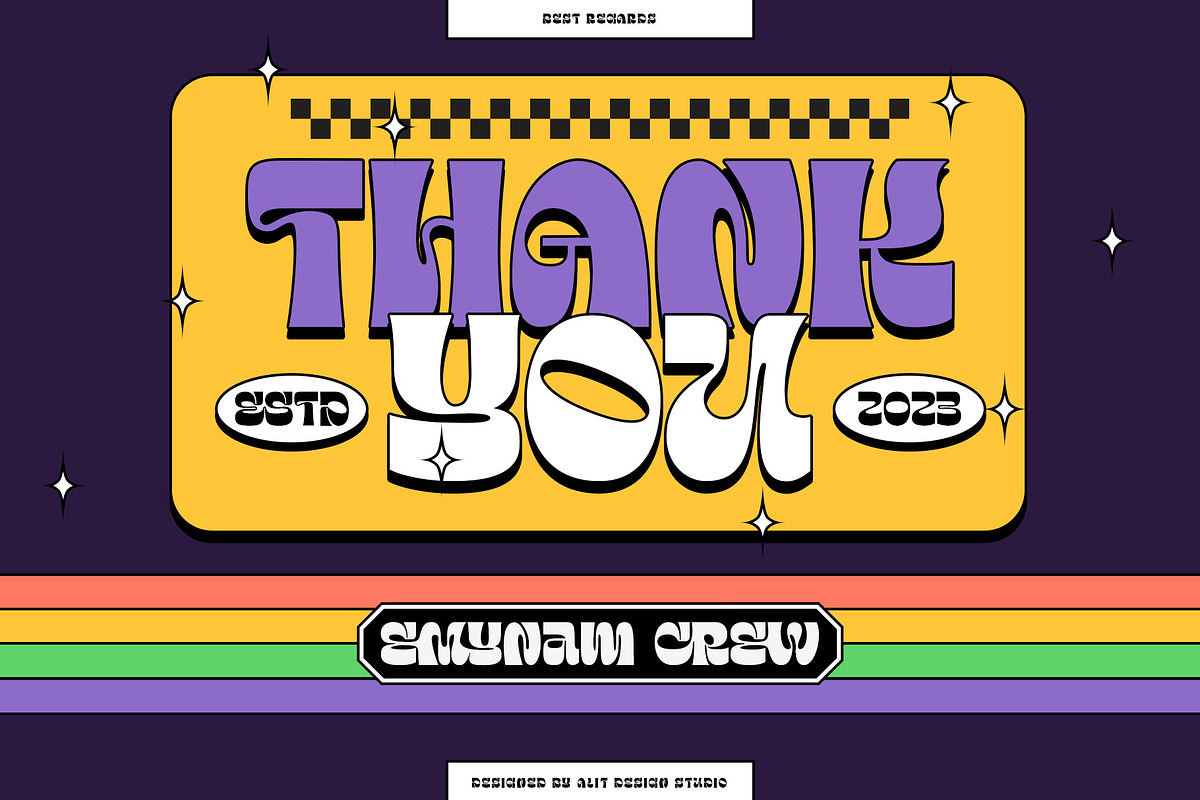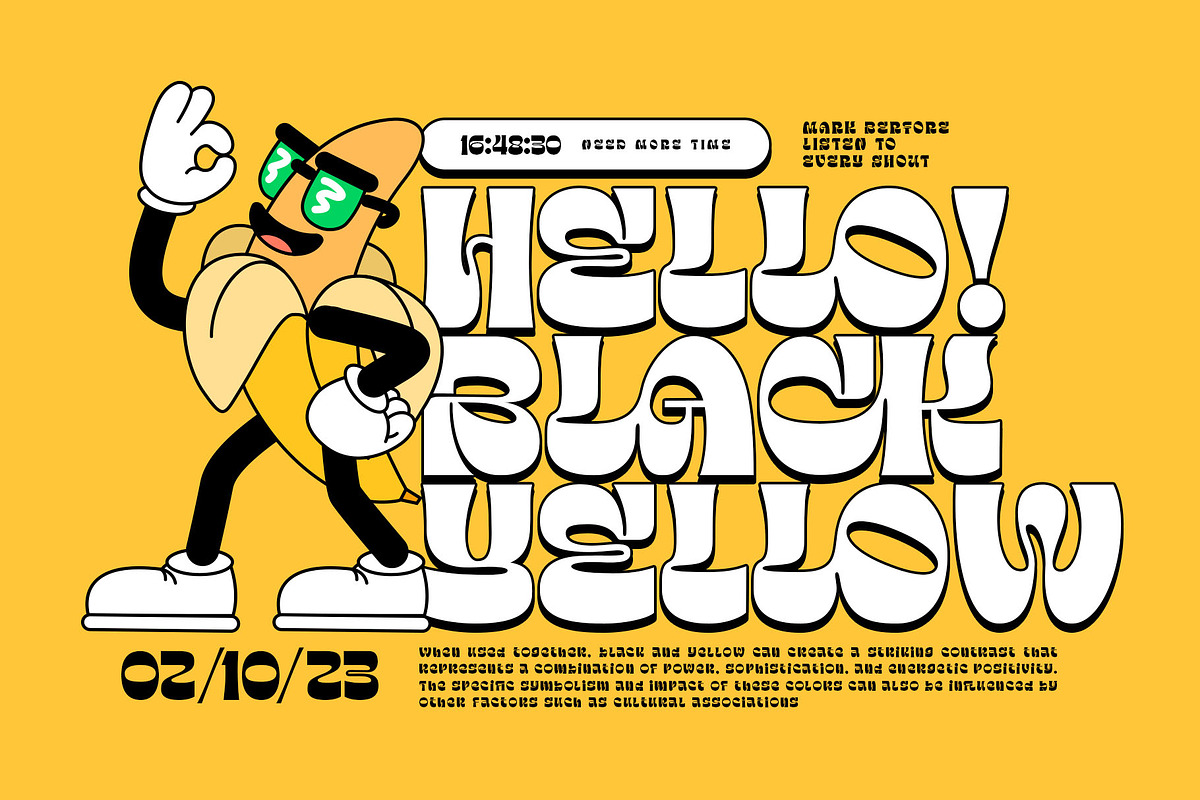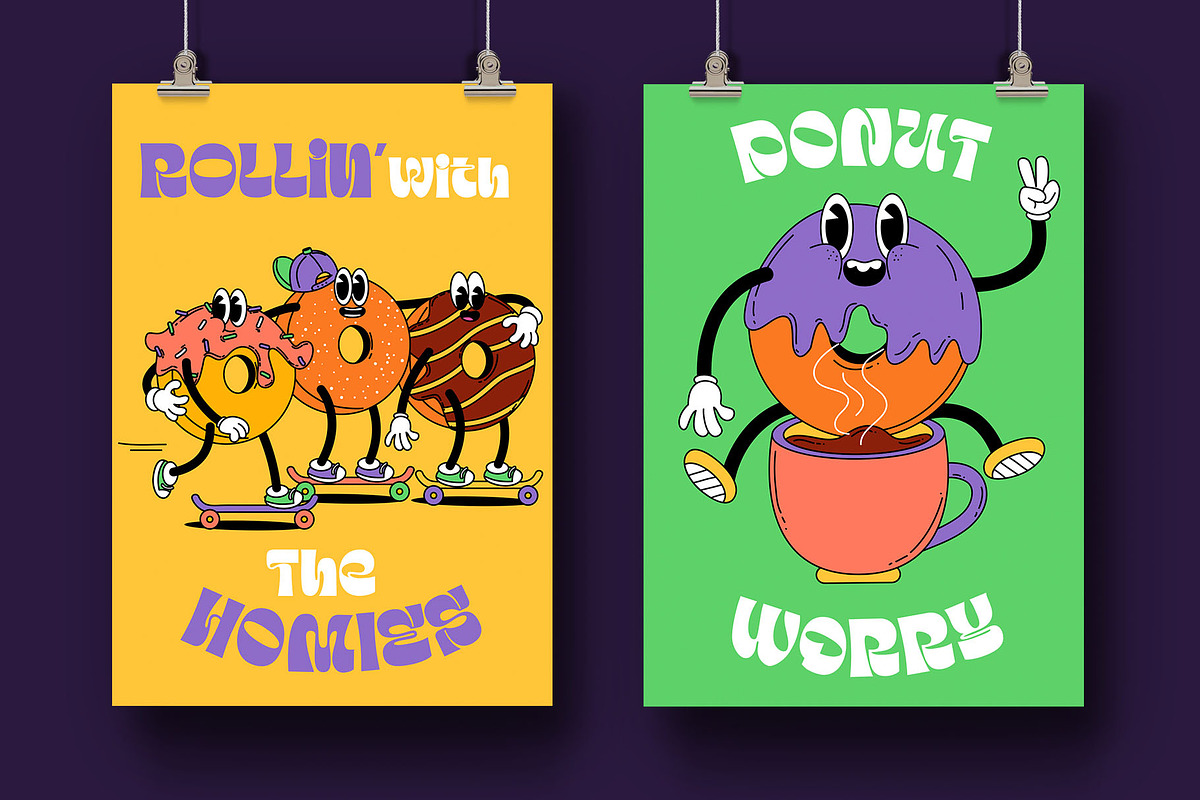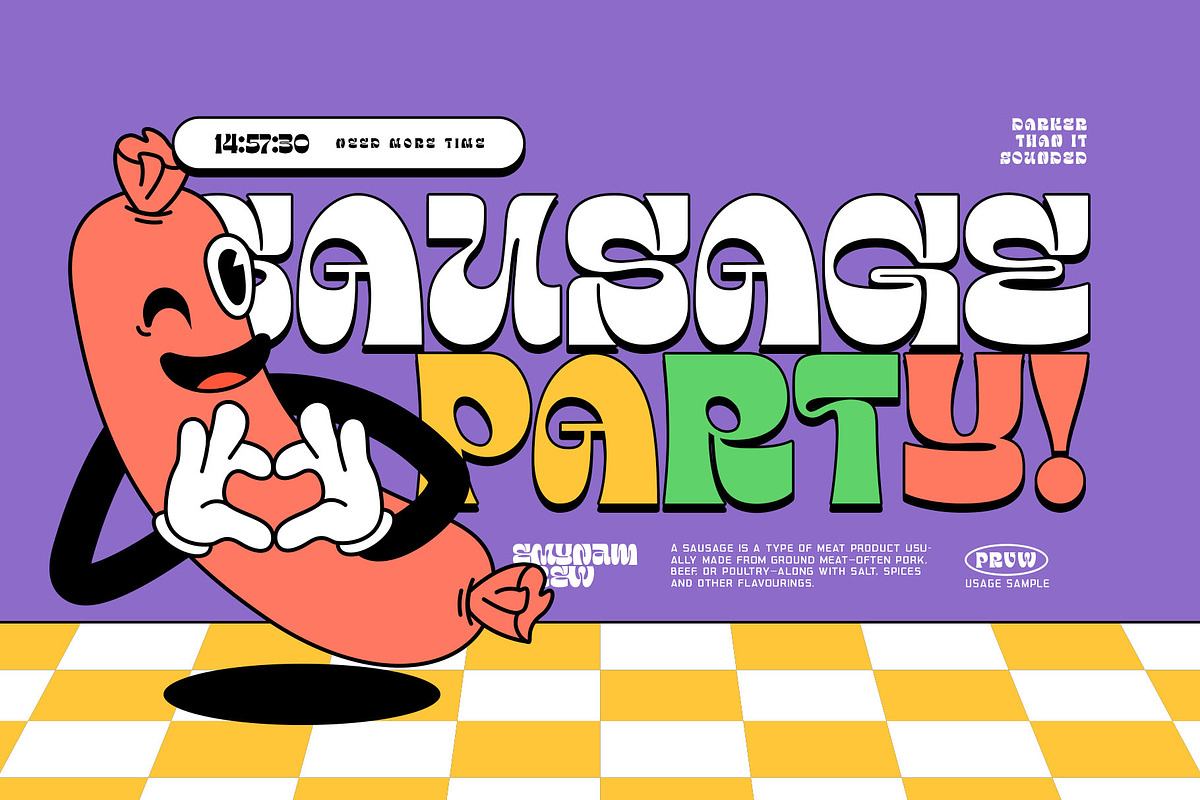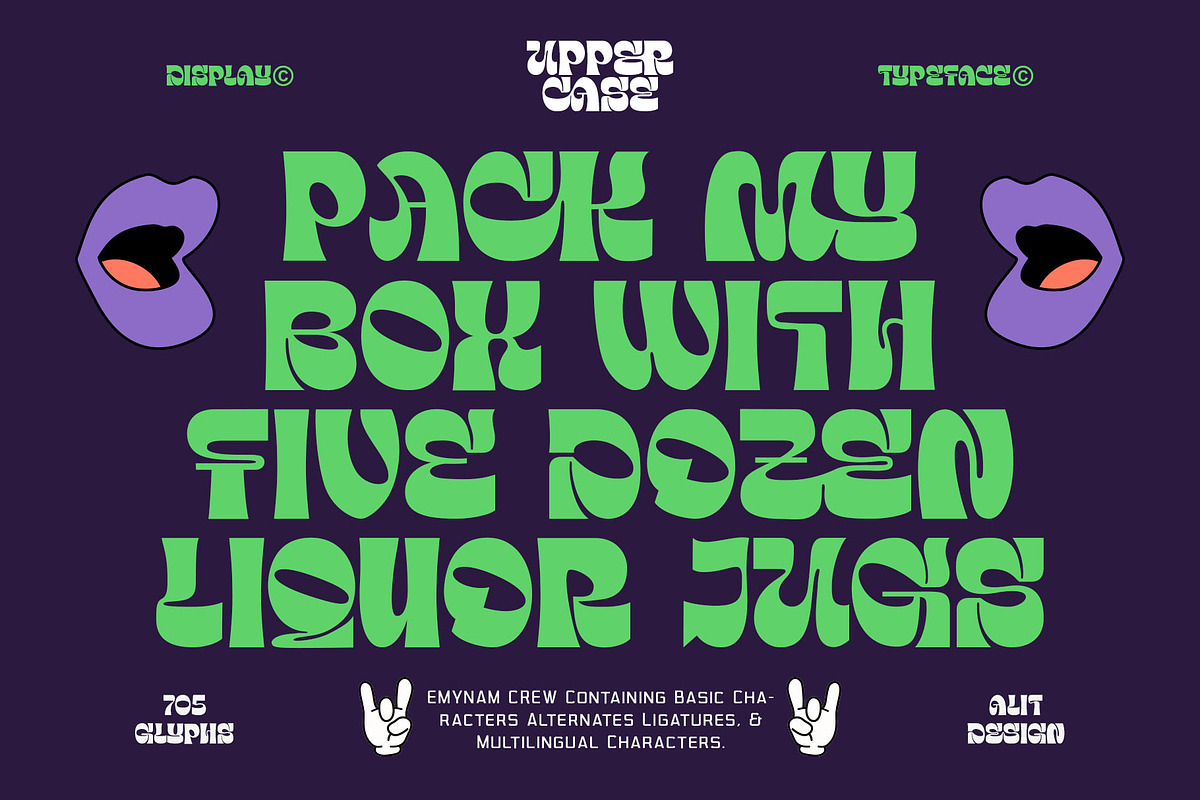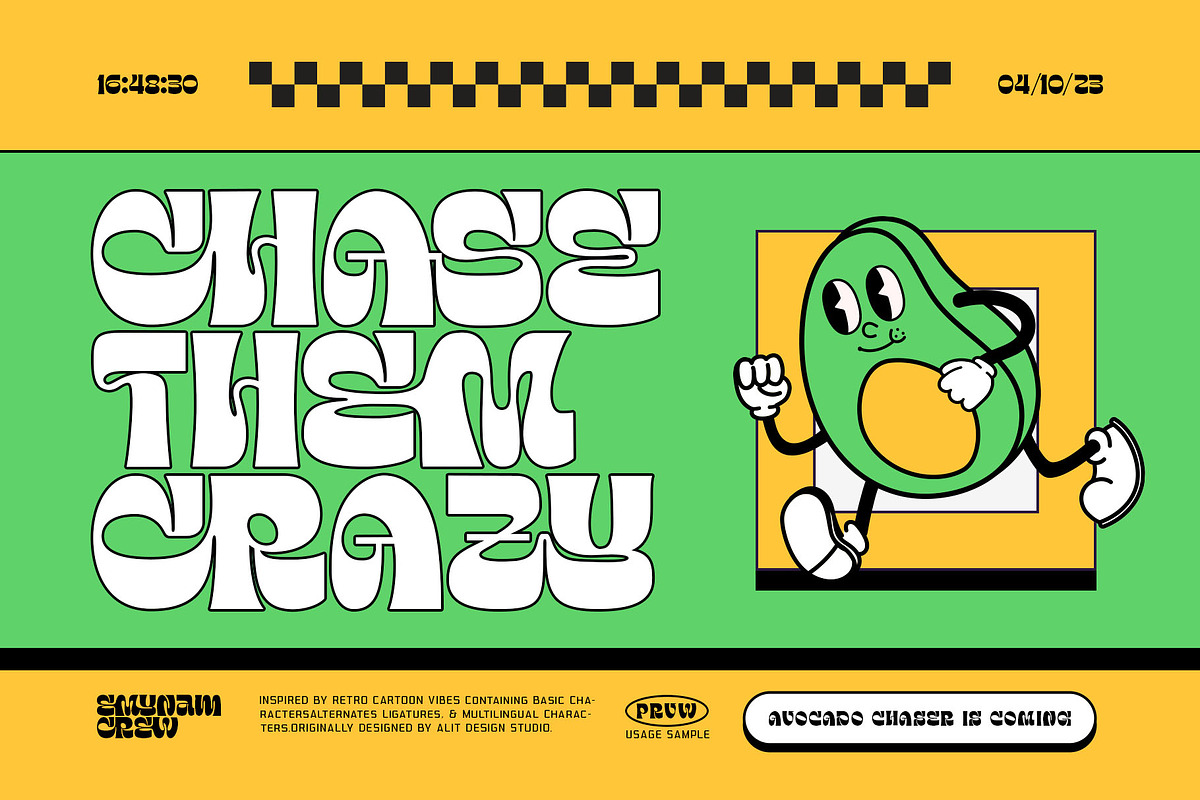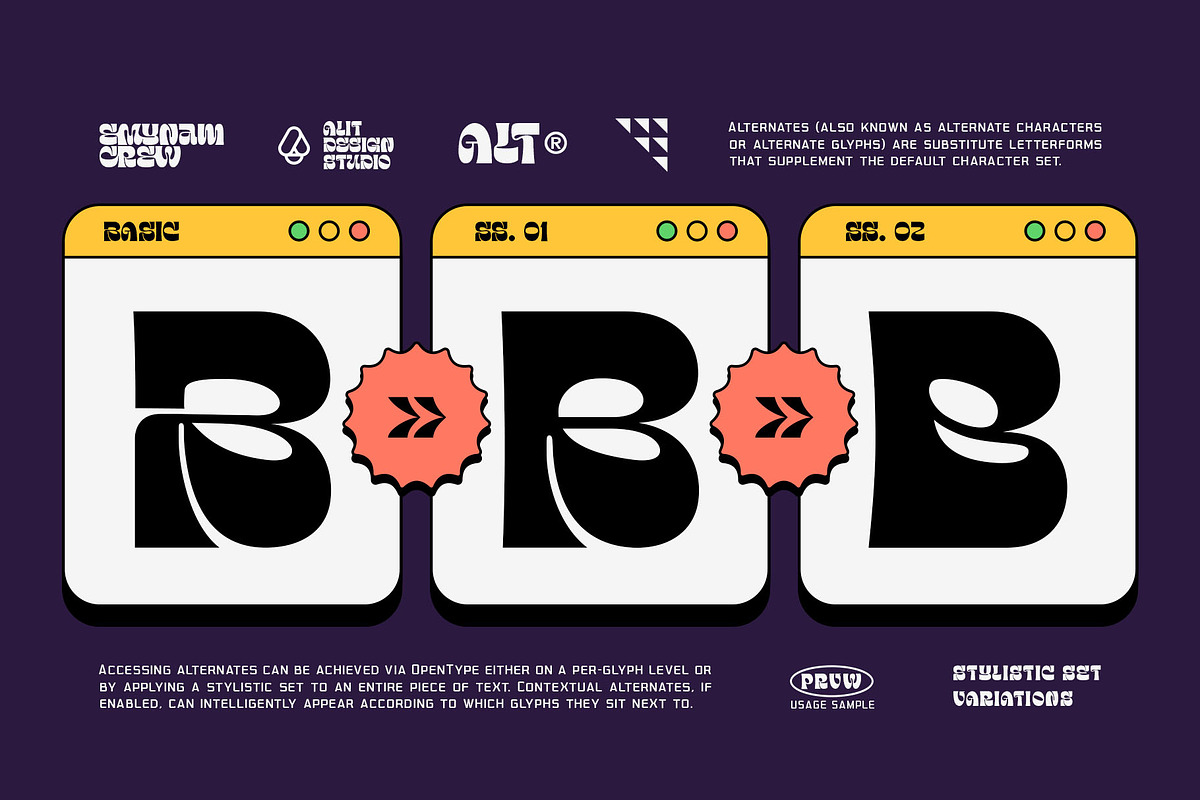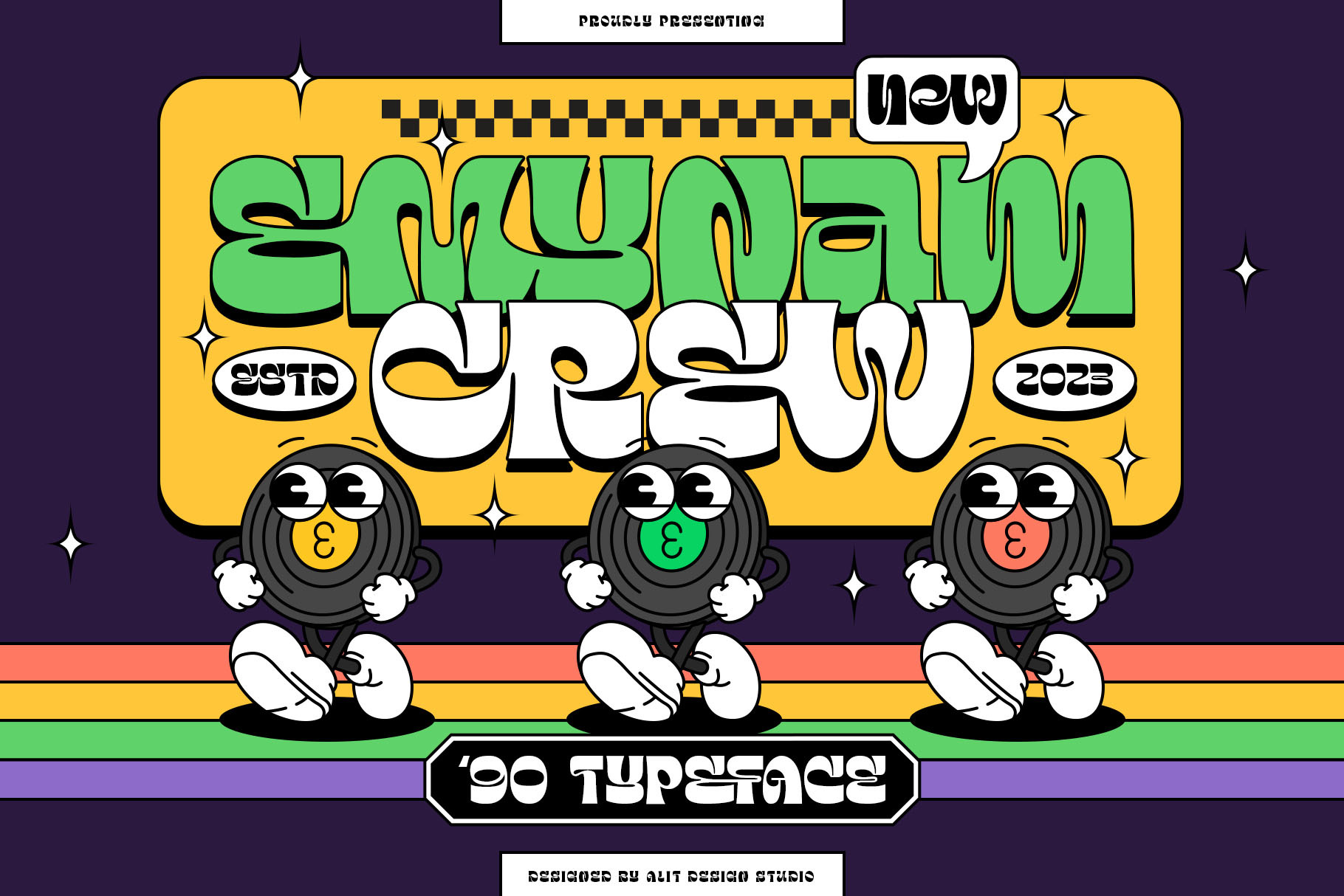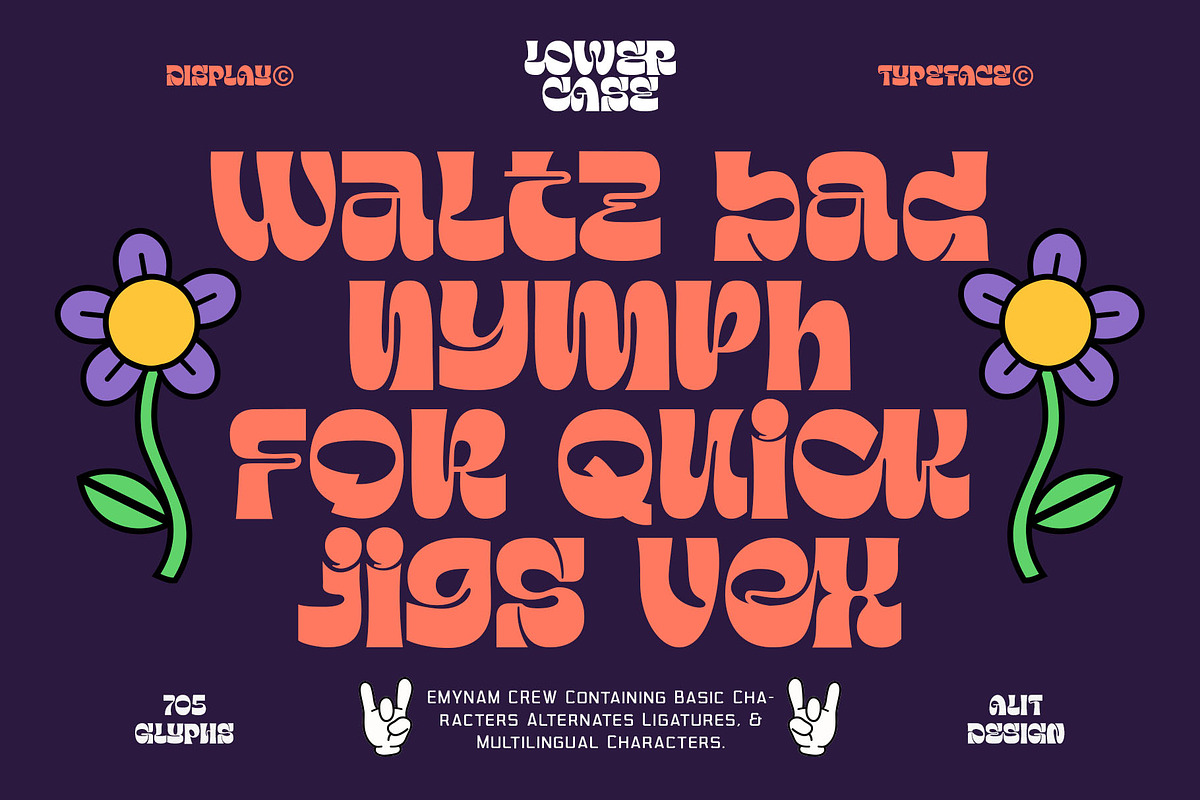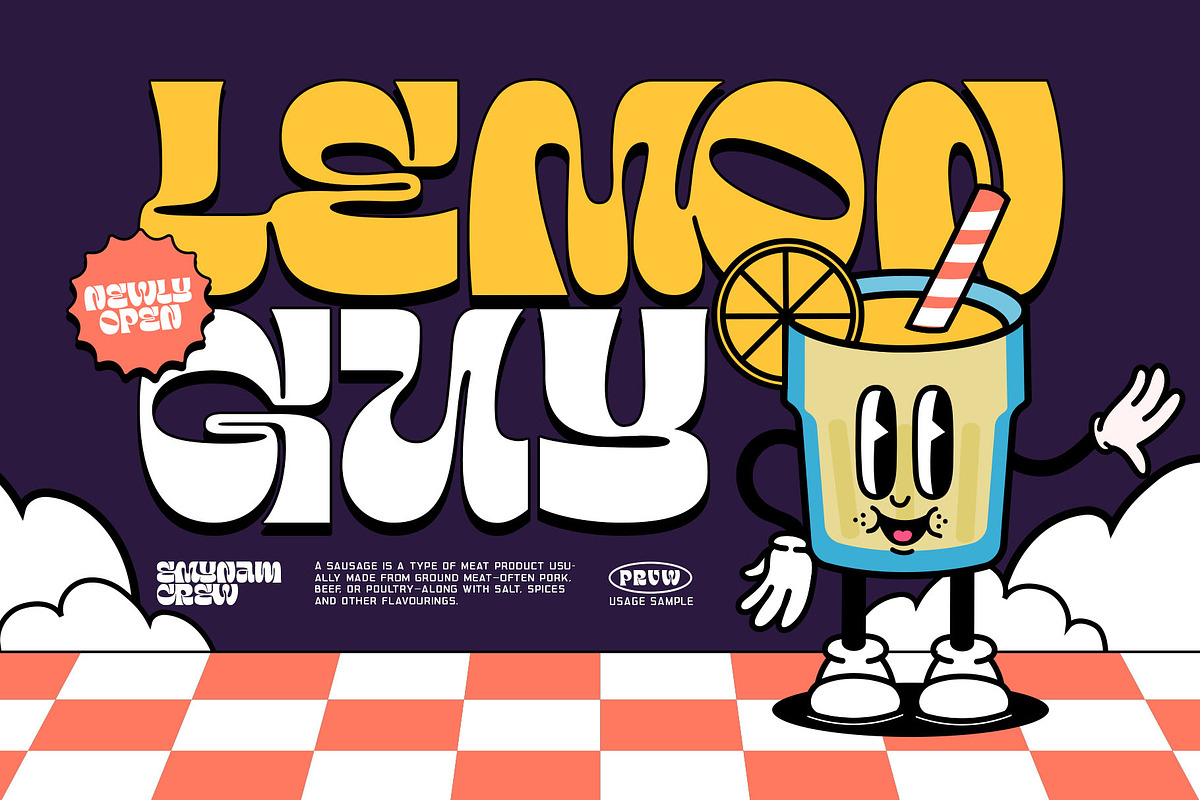
Emynam Crew Typeface
Introducing the Emynam Crew: A Funky Retro Display Typeface
Are you ready to groove to the rhythm of creativity and nostalgia? Say hello to the Emynam Crew, the font that's bringing back the funky retro vibes of yesteryears with a modern twist. With its unique blend of style, flair, and a whopping 705 glyphs, this typeface is a must-have for anyone looking to make a statement.
Retro Vibes: Emynam Crew captures the essence of the 70s and 80s with its bold, funky letterforms. It's like a blast from the past, perfect for adding a touch of nostalgia to your designs.
Ligatures and Alternatives: Dive into the world of creativity with multiple ligatures and alternative characters. Mix and match to create stunning, one-of-a-kind typographic compositions.
PUA Multilingual Support: Emynam Crew is not just about style; it's about substance too. With PUA multilingual support, you can use this font to communicate in various languages, making it a versatile choice for global projects.
Endless Possibilities: With 705 glyphs at your disposal, the possibilities are endless. Whether you're designing posters, album covers, branding materials, or anything else, Emynam Crew gives you the freedom to express your unique vision.
Stylish Display: Make a bold statement with Emynam Crew as your headline or display font. Its eye-catching style ensures that your message won't go unnoticed.
Perfect for Retro Revival: Whether you're working on a retro-themed project or just want to infuse a touch of nostalgia into your designs, Emynam Crew is your go-to choice.
Unleash your inner artist and let Emynam Crew transport your designs to a bygone era. Embrace the funk, the retro, and the style with this one-of-a-kind typeface.